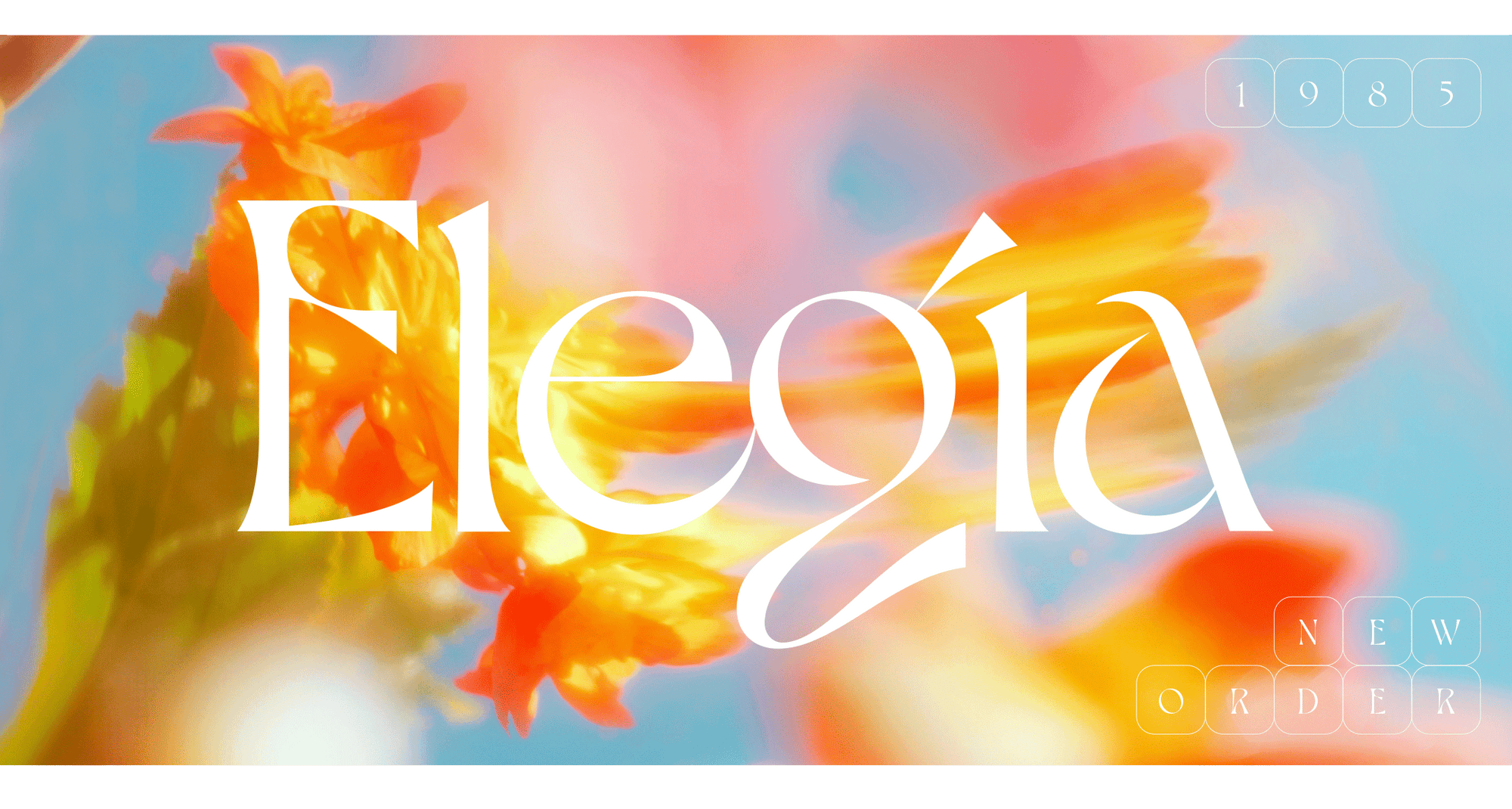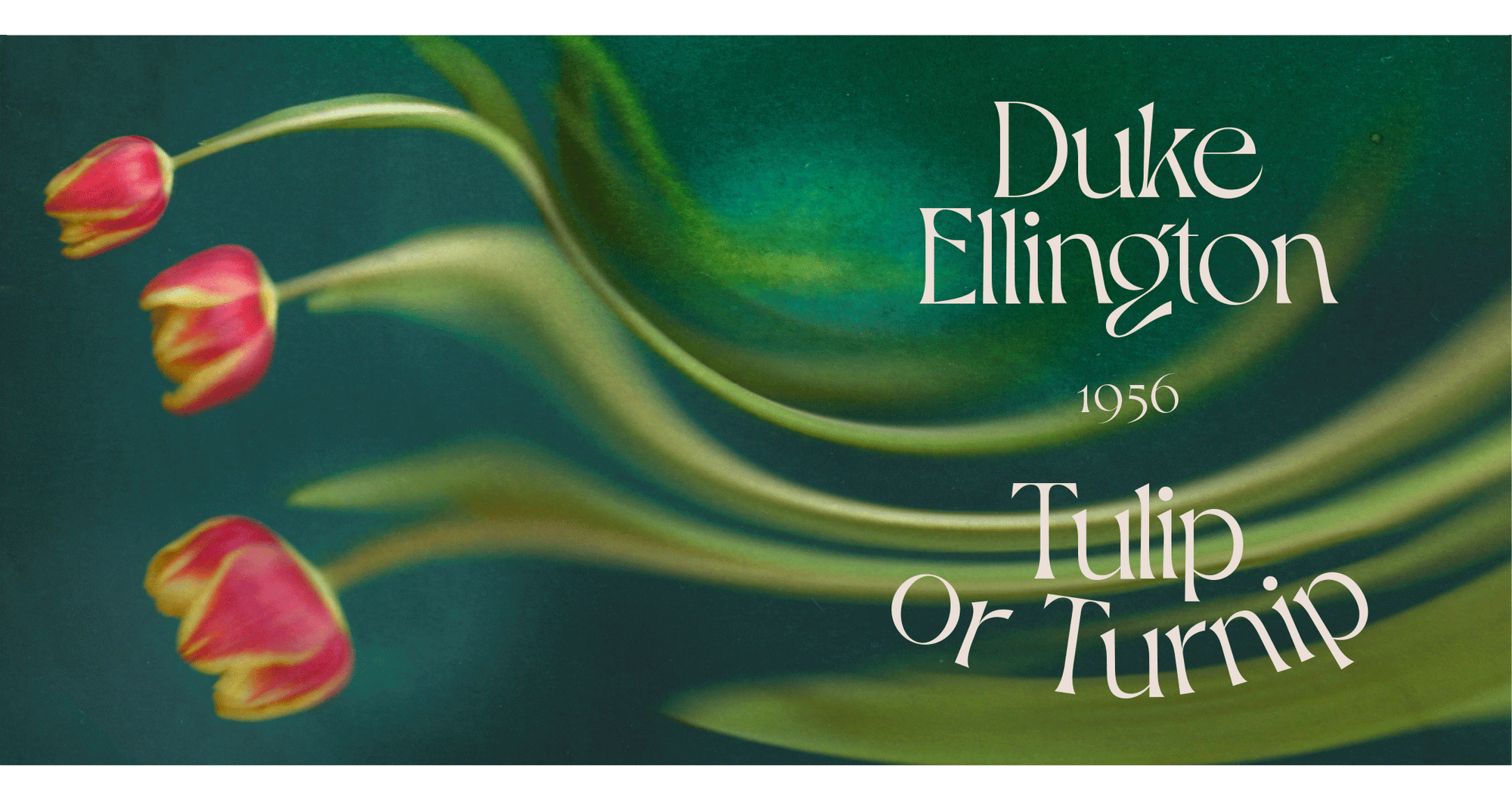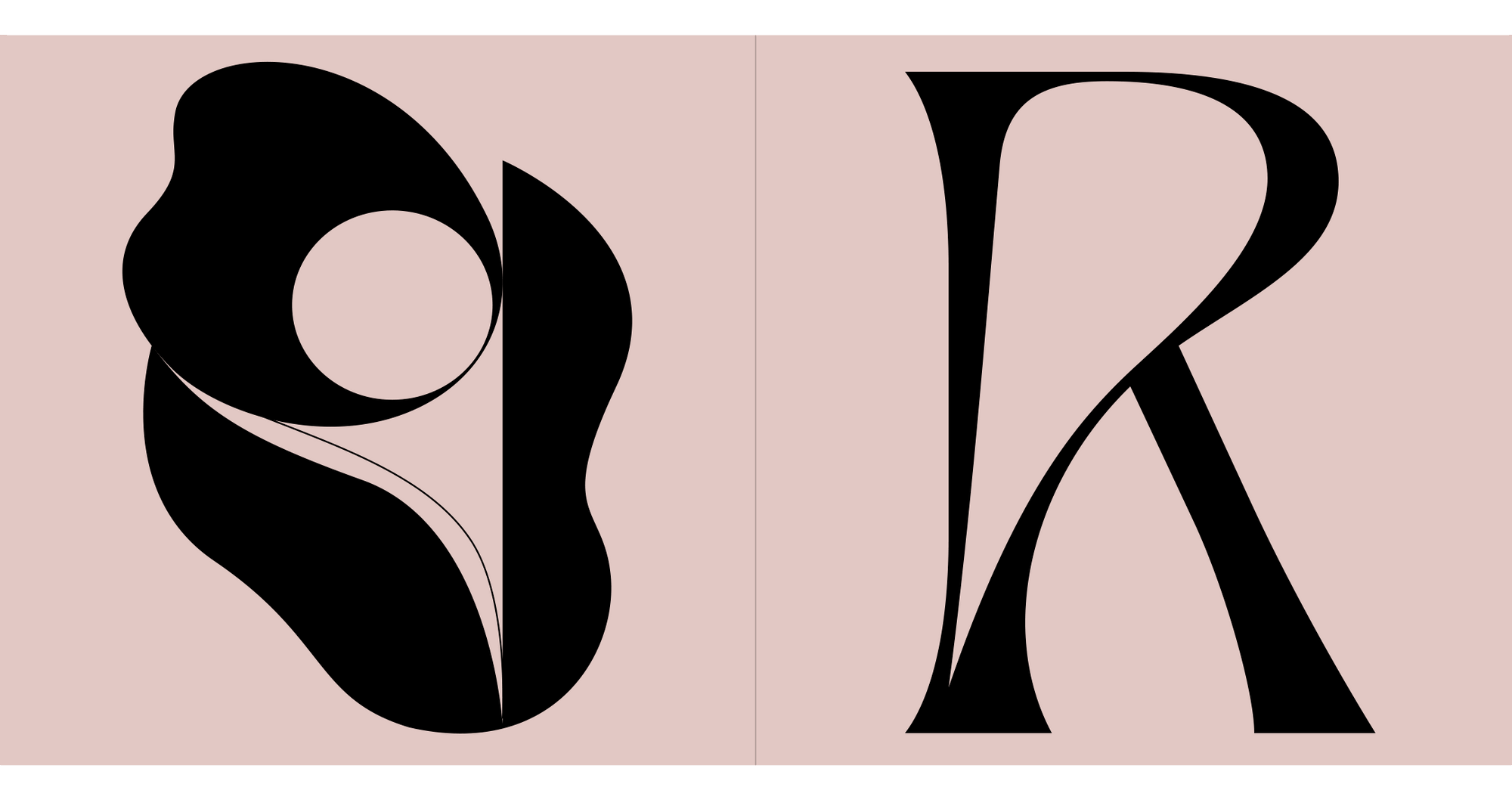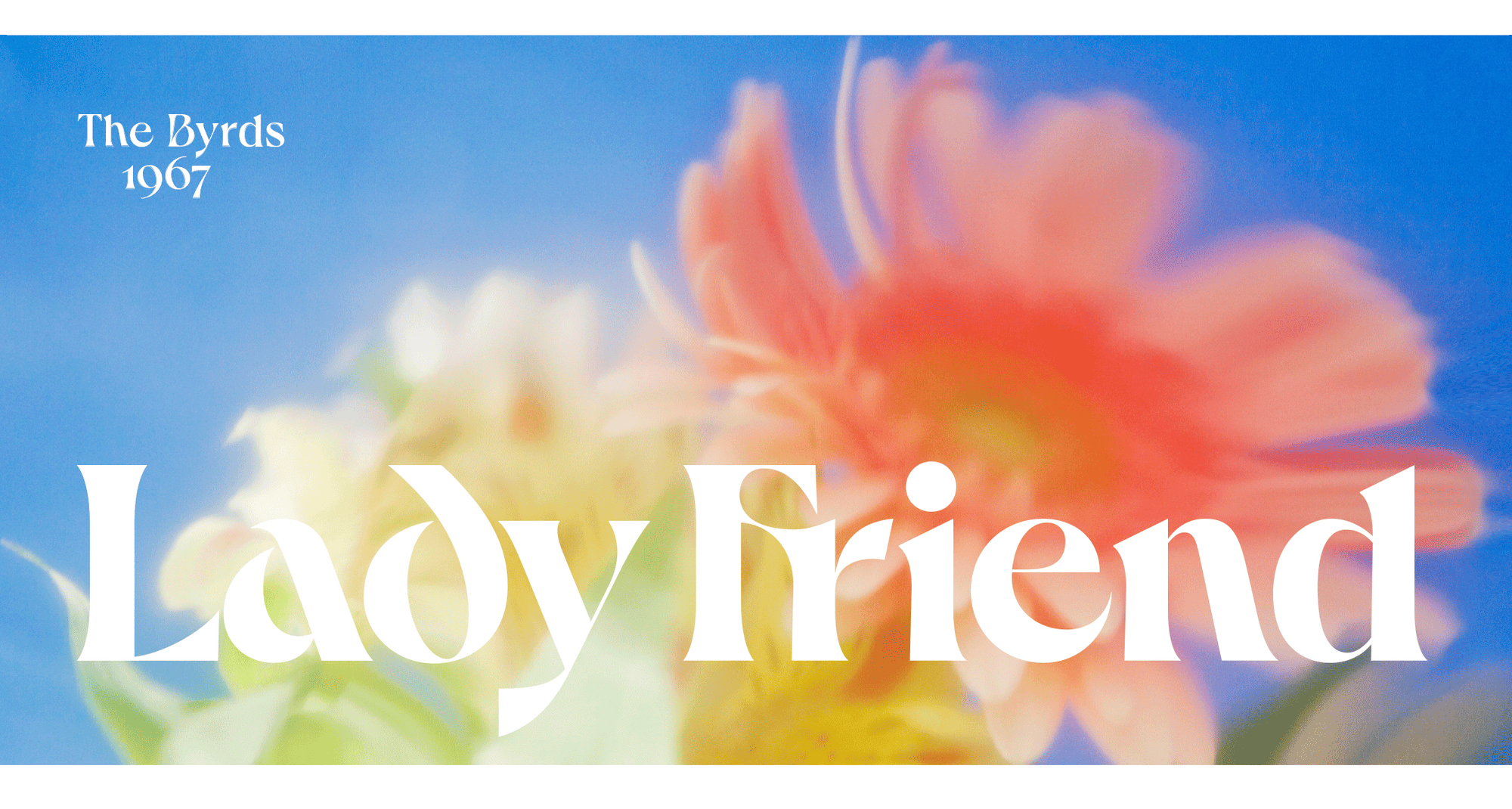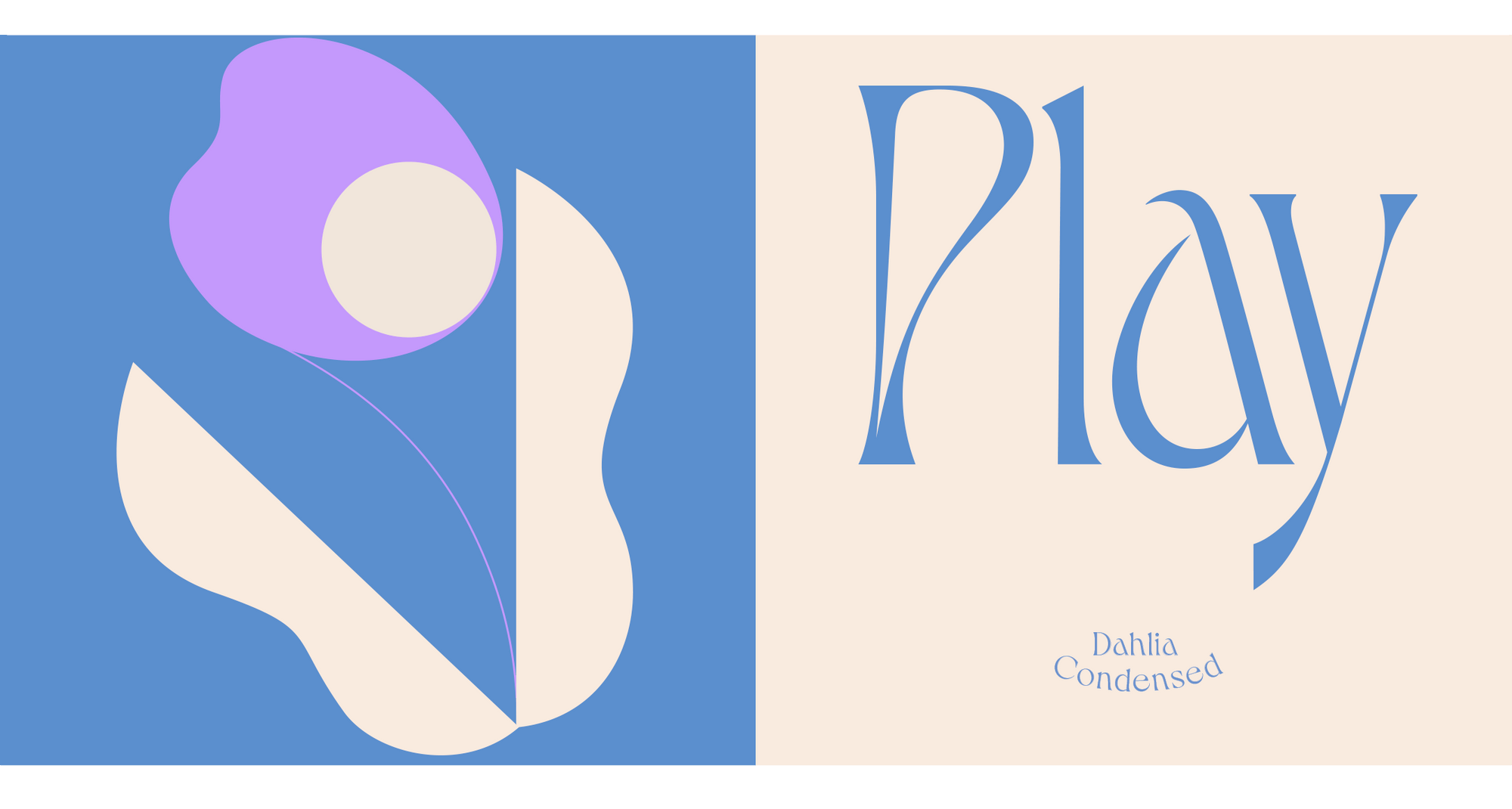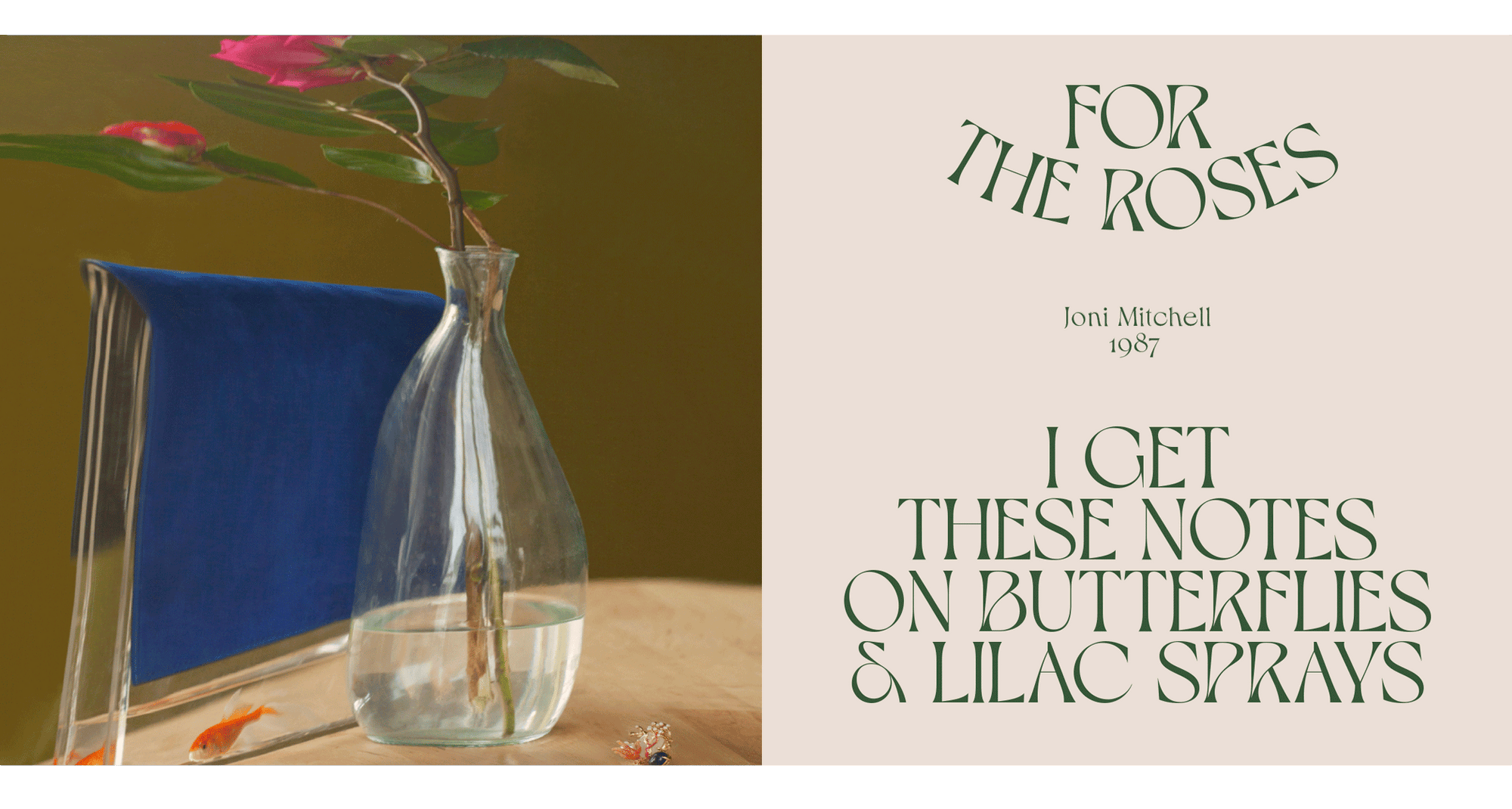
Dahlia
Display - 6 weights
Regular, Regular Condensed, Medium, Medium Condensed, Bold, Bold Condensed -
Release
2021 -
Designer
Jérémy Schneider
Dahlia typeface grew from a land filled with elegance, 1910’s Italian lake posters and Art Nouveau feeling. Like so many flowers, it translates a sense of perfect balance between eccentricity and delicacy. It was designed in 2021 by Jérémy Schneider for VJ Type. Dahlia typeface is a display serif typeface, useful for headlines or short to medium-length texts. It comes with 3 weights, regular, medium and bold, and 2 widths, normal and condensed. Dahlia is nonconformist, romantic, delicate and has some extravagant alternates. Its atypical curves and refined details create a lot of rhythm, and timeless elegance. The Bold version uses high contrast to be as noticeable as possible. With a touch of Art Nouveau inspiration, its counter forms are highly expressive, particularly the upper cases P, R, K, B, E. Letters endings and curves are inspired by the flower stems, burgeons and spines. We drew 93 stylistic ligatures, like the vegetal world can naturally combine species. Each letter is designed so that the transition from one letter to the next remains melodious. In this context, all circular glyphs (e,c,o) are included in the Standard ligatures, and enabled by default.
Alternates
Ligatures